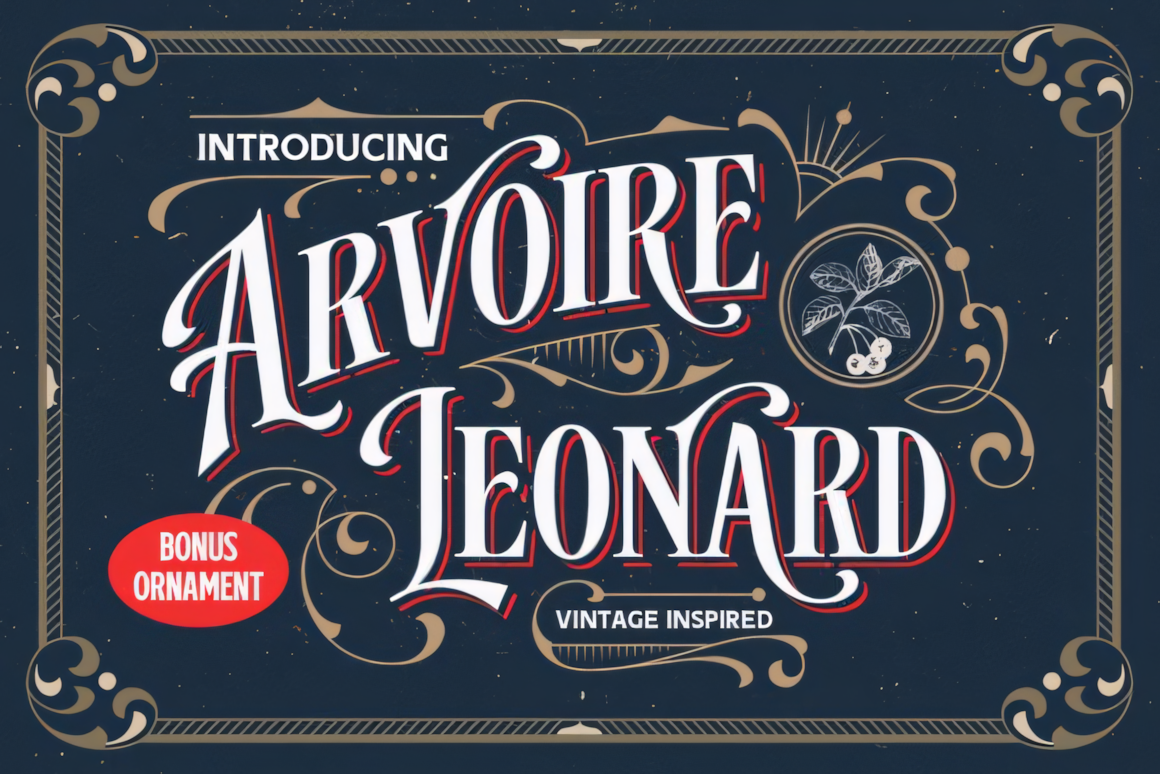
The new exploration that was inspired by the typography of the 19th century, we proudly present “Arvoire Leonard”-the modern vintage font in Regular and Shadow. The images were taken from many sources such as vintage signage, logos, badges and old-fashioned graphics.
Arvoire Leonard is an all-caps font, which is quite elegant and at the same time has a classic touch to it. Arvoire Leonard is the perfect choice for many display applications. You can apply the given font to posters, labels, logos, signboards, t-shirts, book covers and decorations.